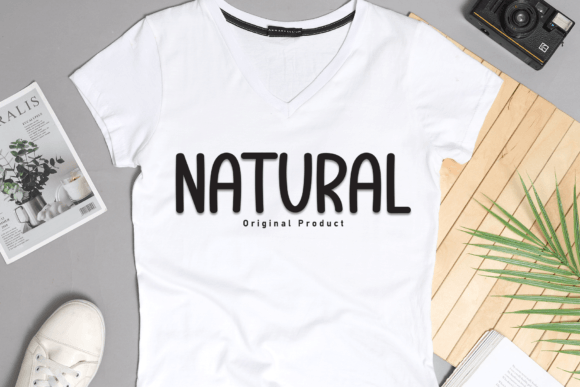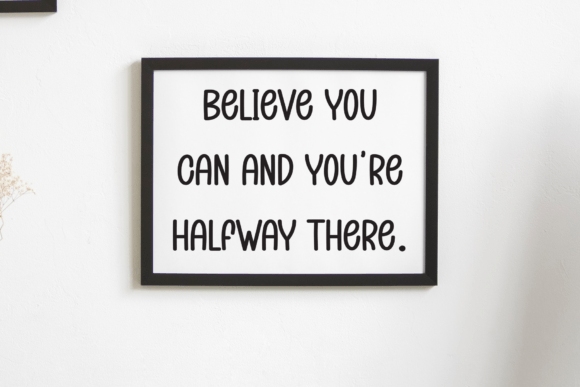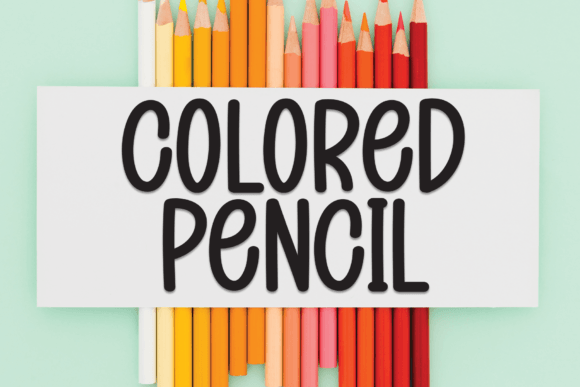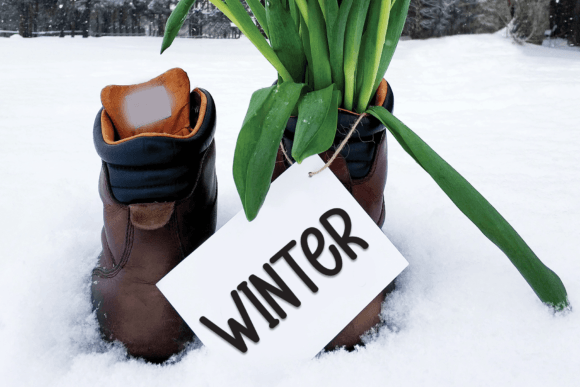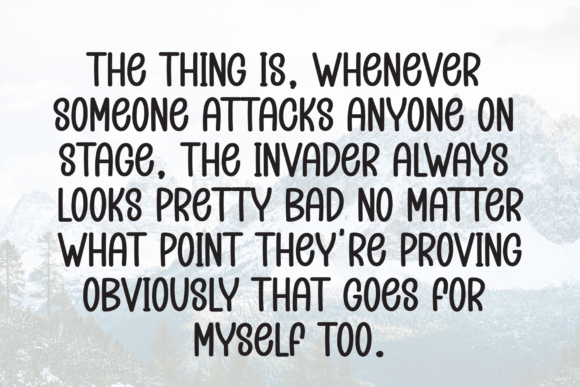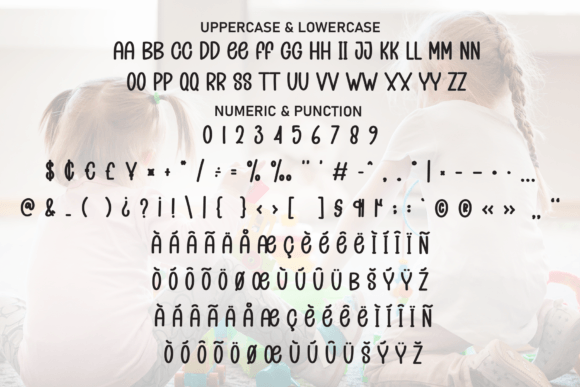
Introduction to Kids Playing Font
Kids Playing is a fun and lively font that captures the joy of children at play.
Its bold letters are playful and colorful, making it perfect for kids’ books, games, and anything that celebrates fun and creativity .
Key Features of Kids Playing Font